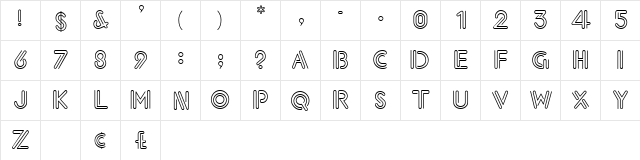
Neon Display Caps SSi Regular
Design Context for Neon Display Caps SSi Typeface
Neon Display Caps SSi channels digital-age aesthetics through its sharp, structured letterforms — ideal for brands that want to signal innovation.
Pro Tip: Use Neon Display Caps SSi in combination with a neutral sans for body text. Let it define the brand voice in headlines while keeping reading comfortable elsewhere.